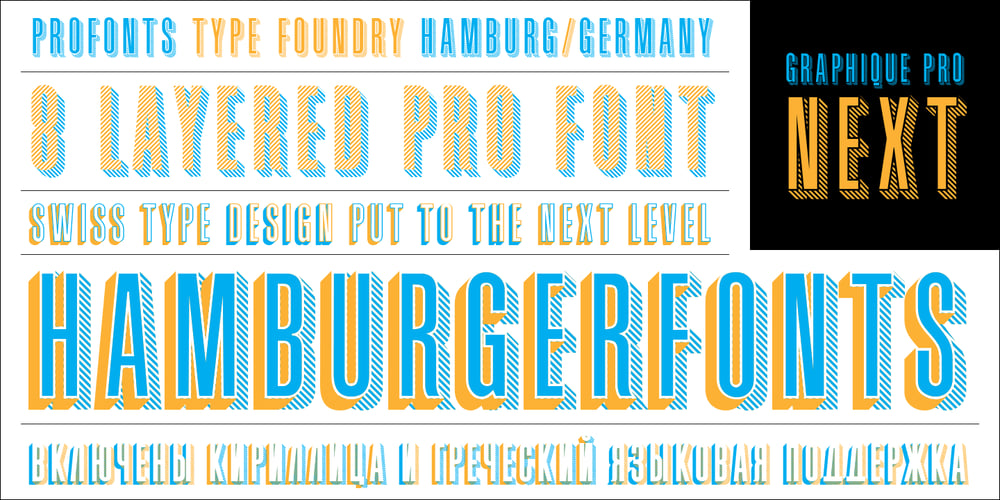
Graphique Next Font Family was designed by Jörn Oelsner and published by profonts. Graphique Next contains 8 styles and family package options. The original Graphique Pro was designed by the famous Swiss designer Hermann Eidenbenz in 1945 and included one outline shadow style. His idea of a very narrow, very economic headline font became increasingly more popular over the last decades and since the recent trend of layered fonts his idea is more up-to-date than ever. profonts studio now took the idea of the Graphique Pro to its next level: Graphique Pro Next. This layered type family consists of 8 styles which can be combined in plenty of ways to create unique designs. The fonts thereby preserve the outstanding and timeless drawings of the original Graphique Pro font and will add an aesthetic and fresh look to every project. Please have a look at the Graphique Pro Next Type Specimen for more details about the language support and font layer combinations.